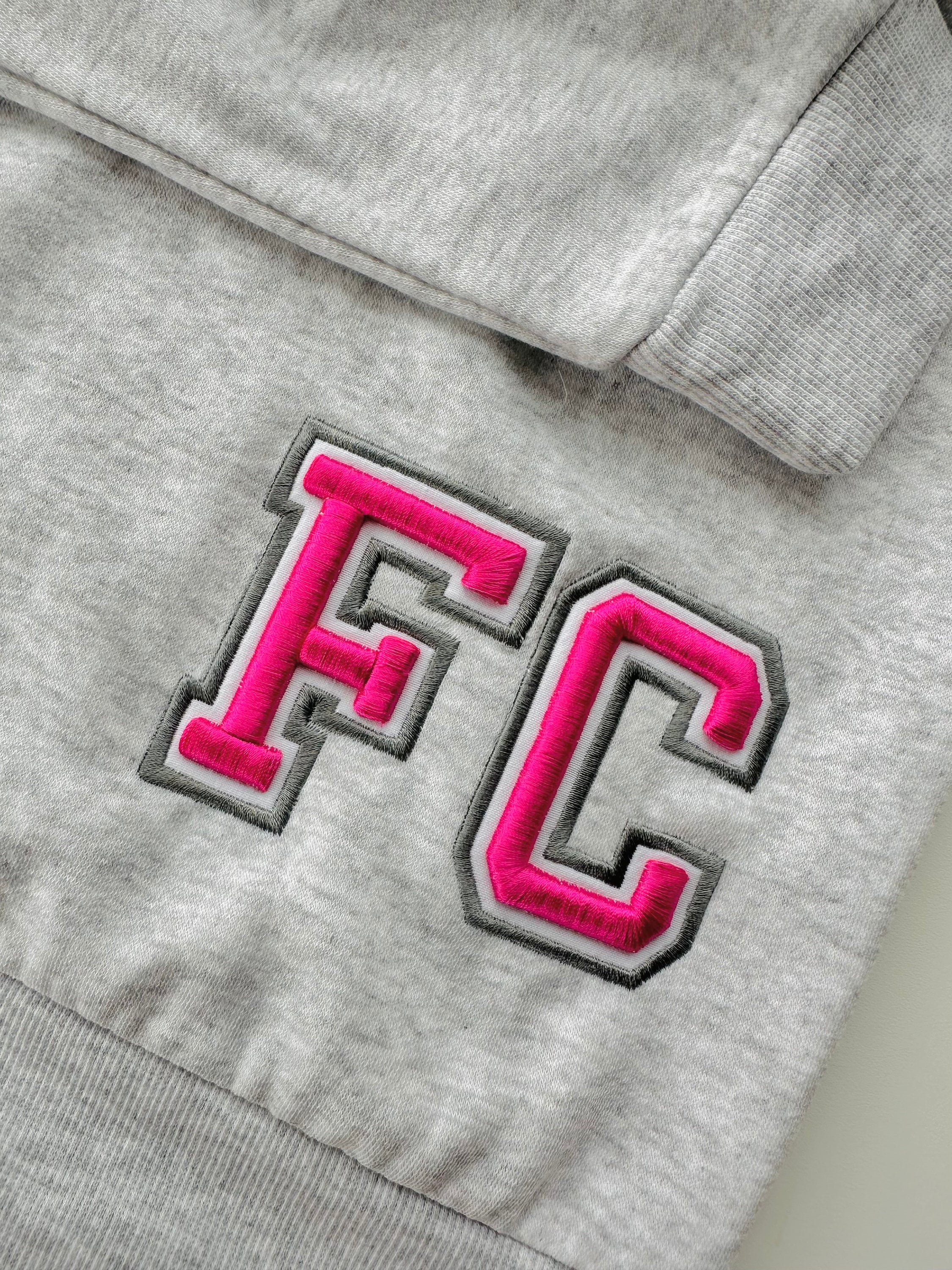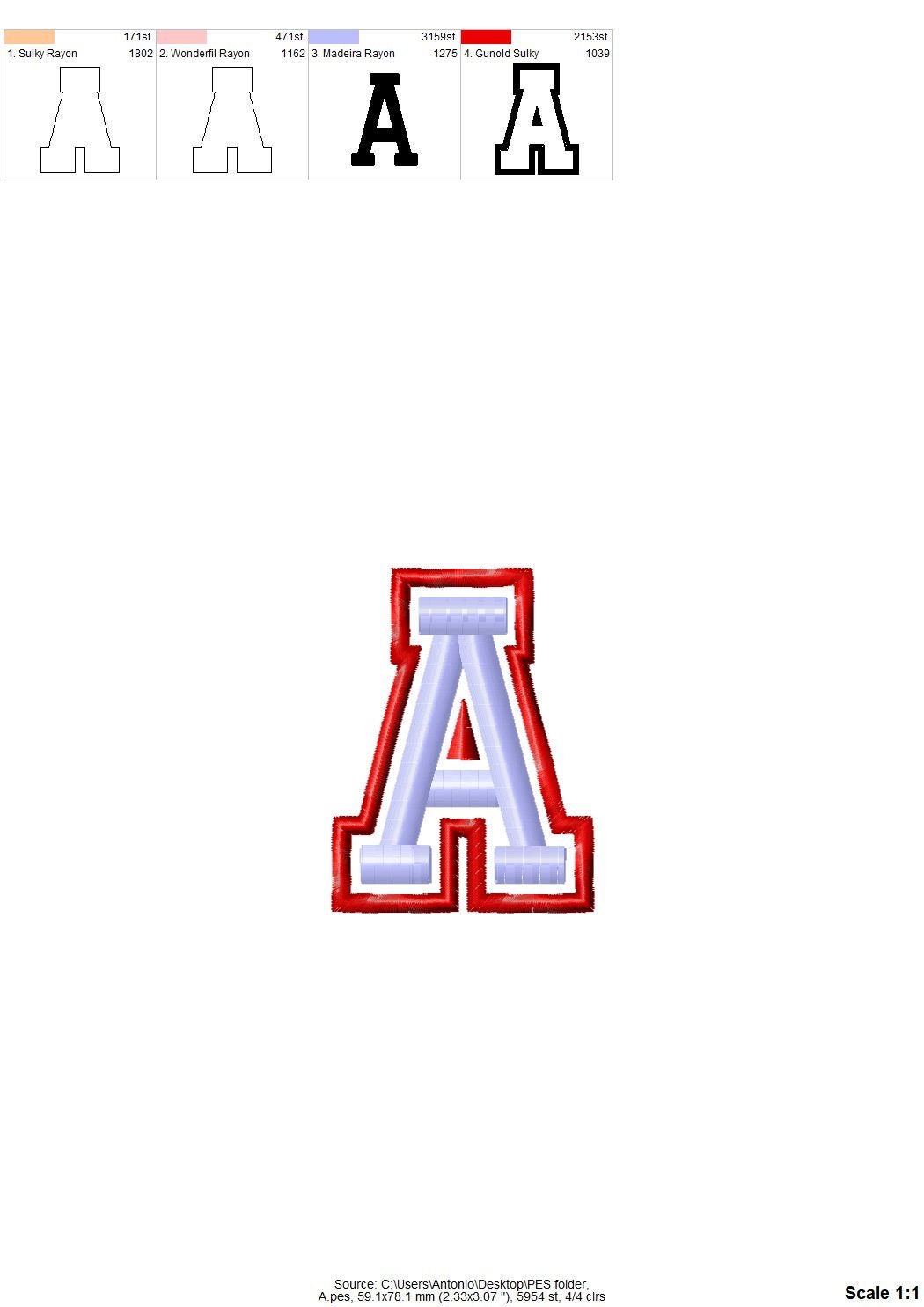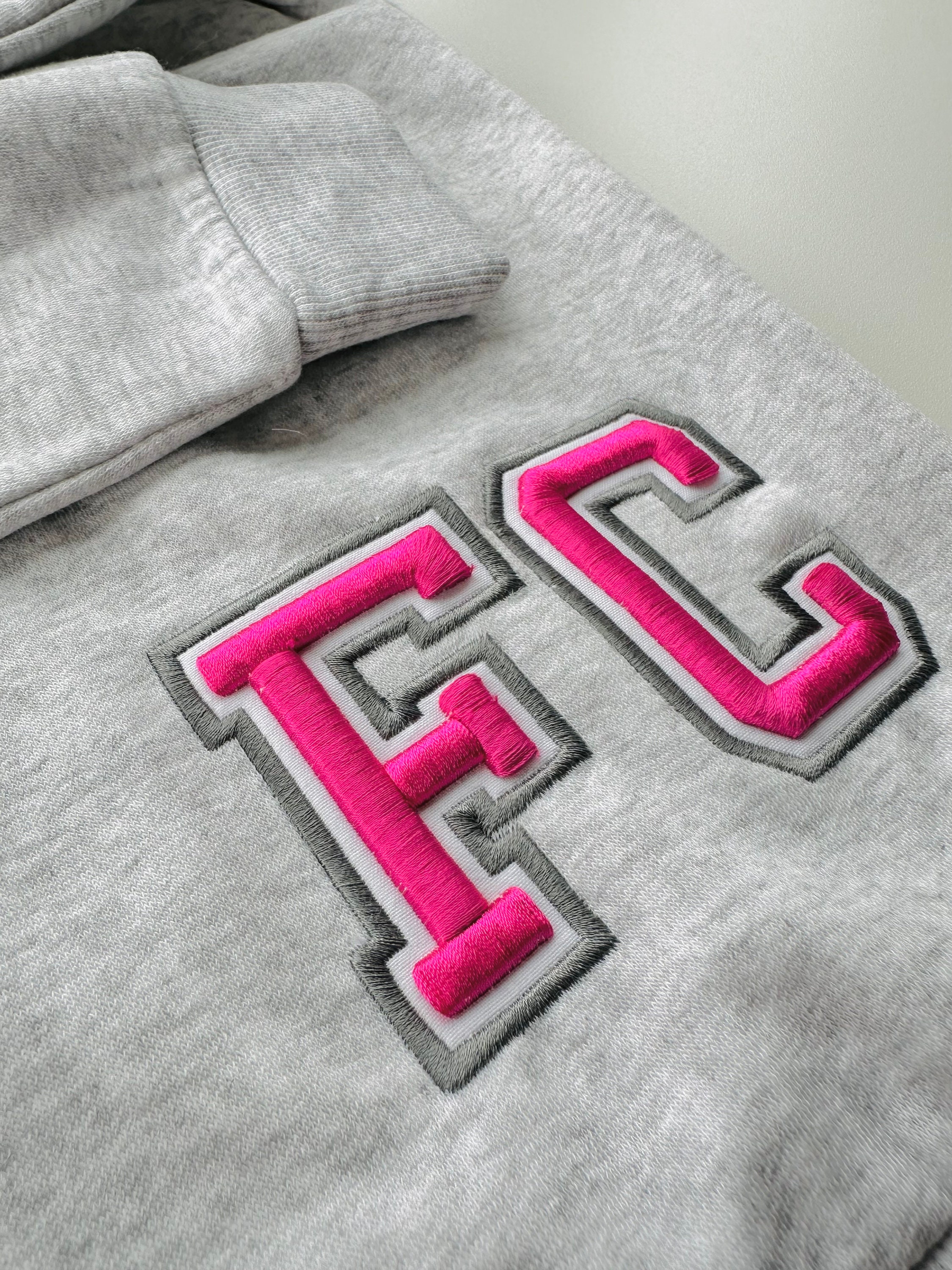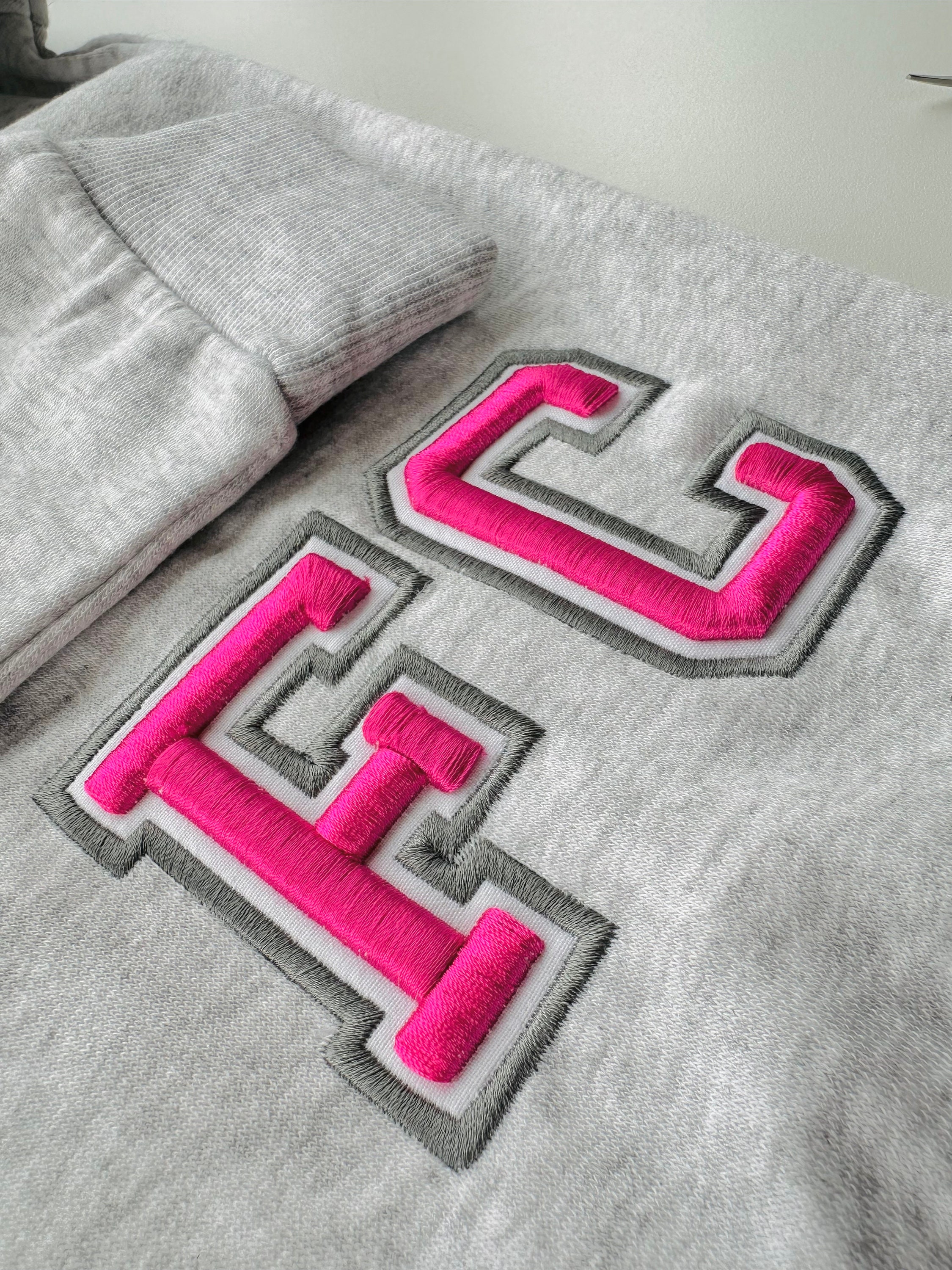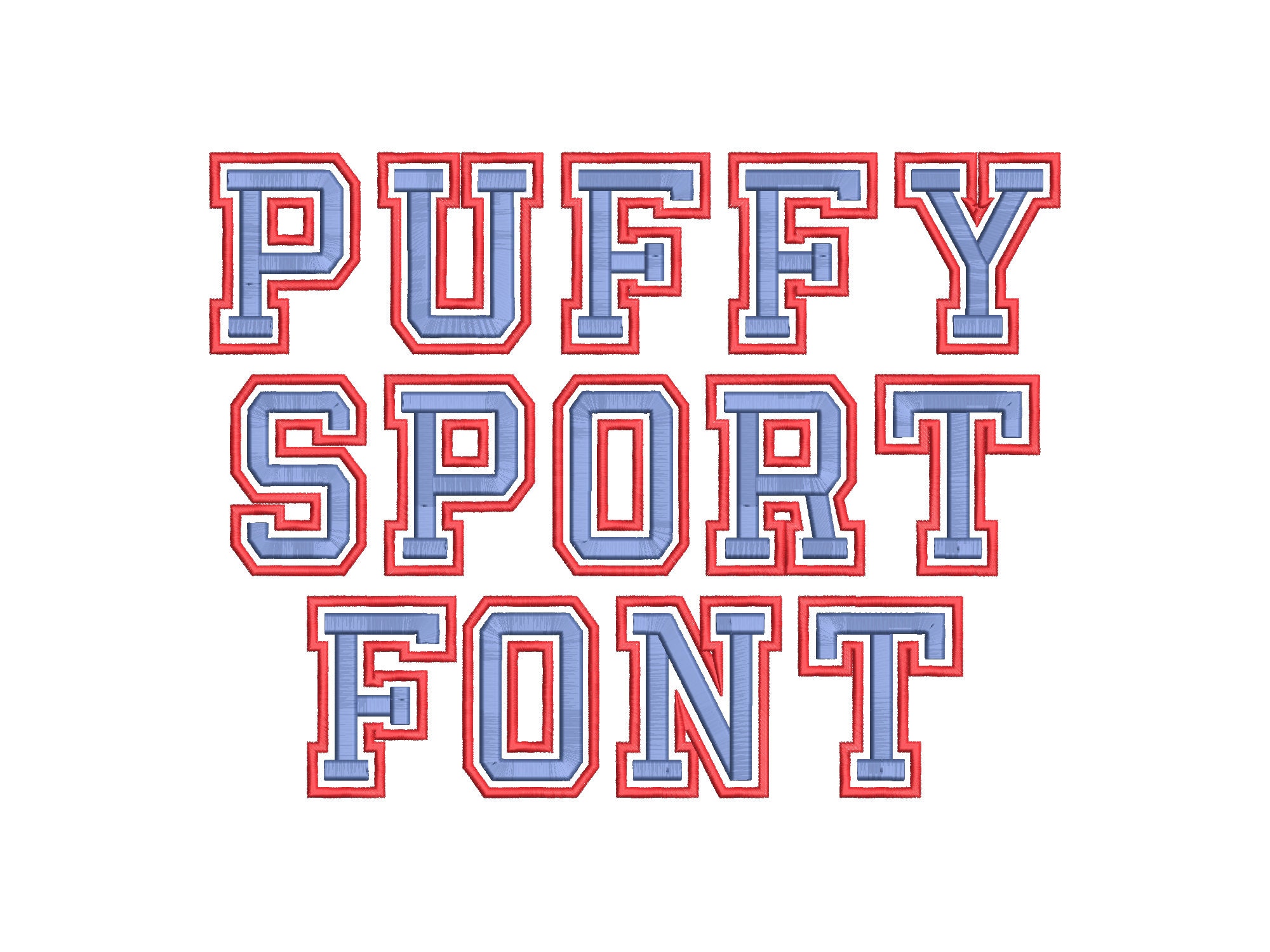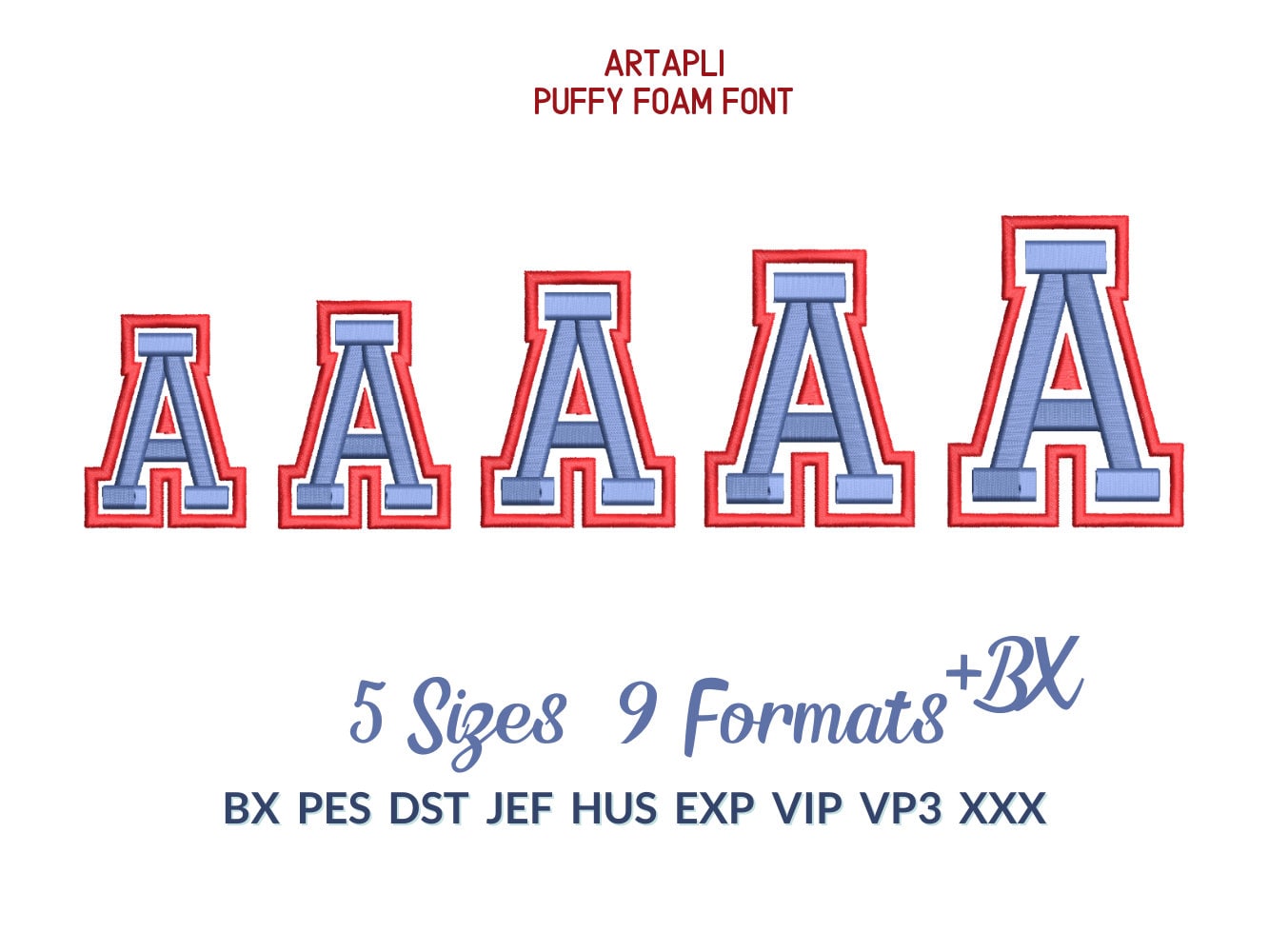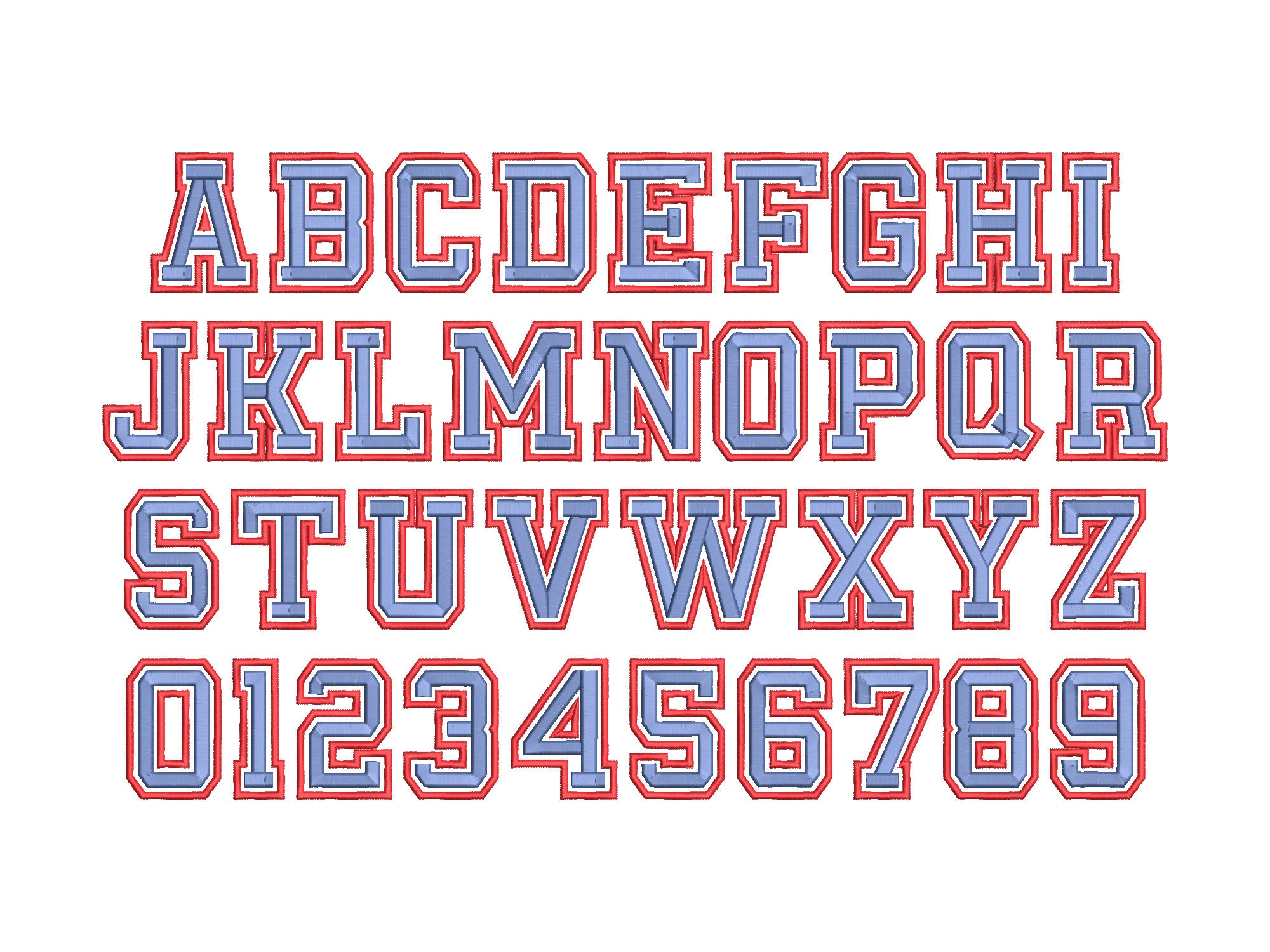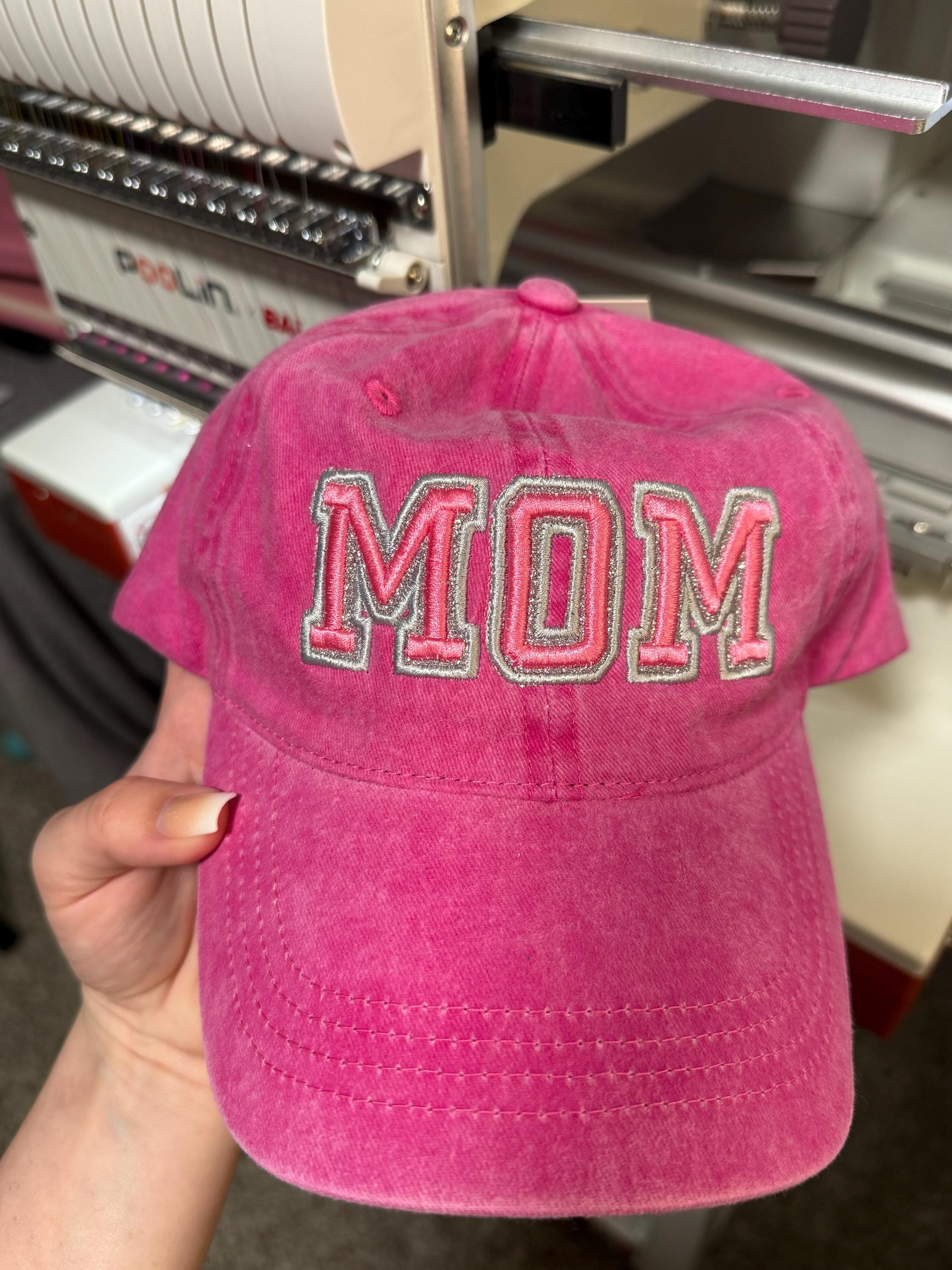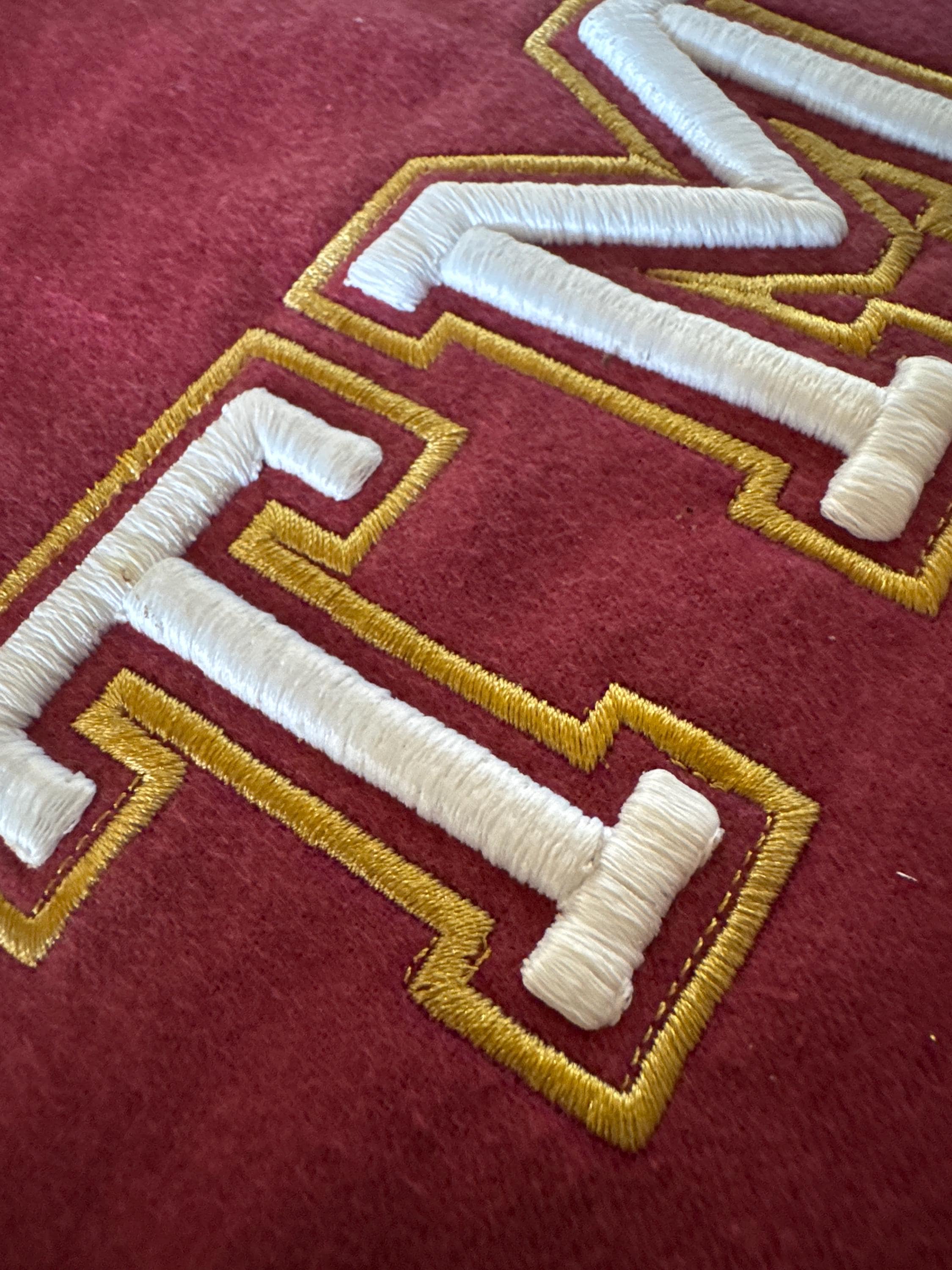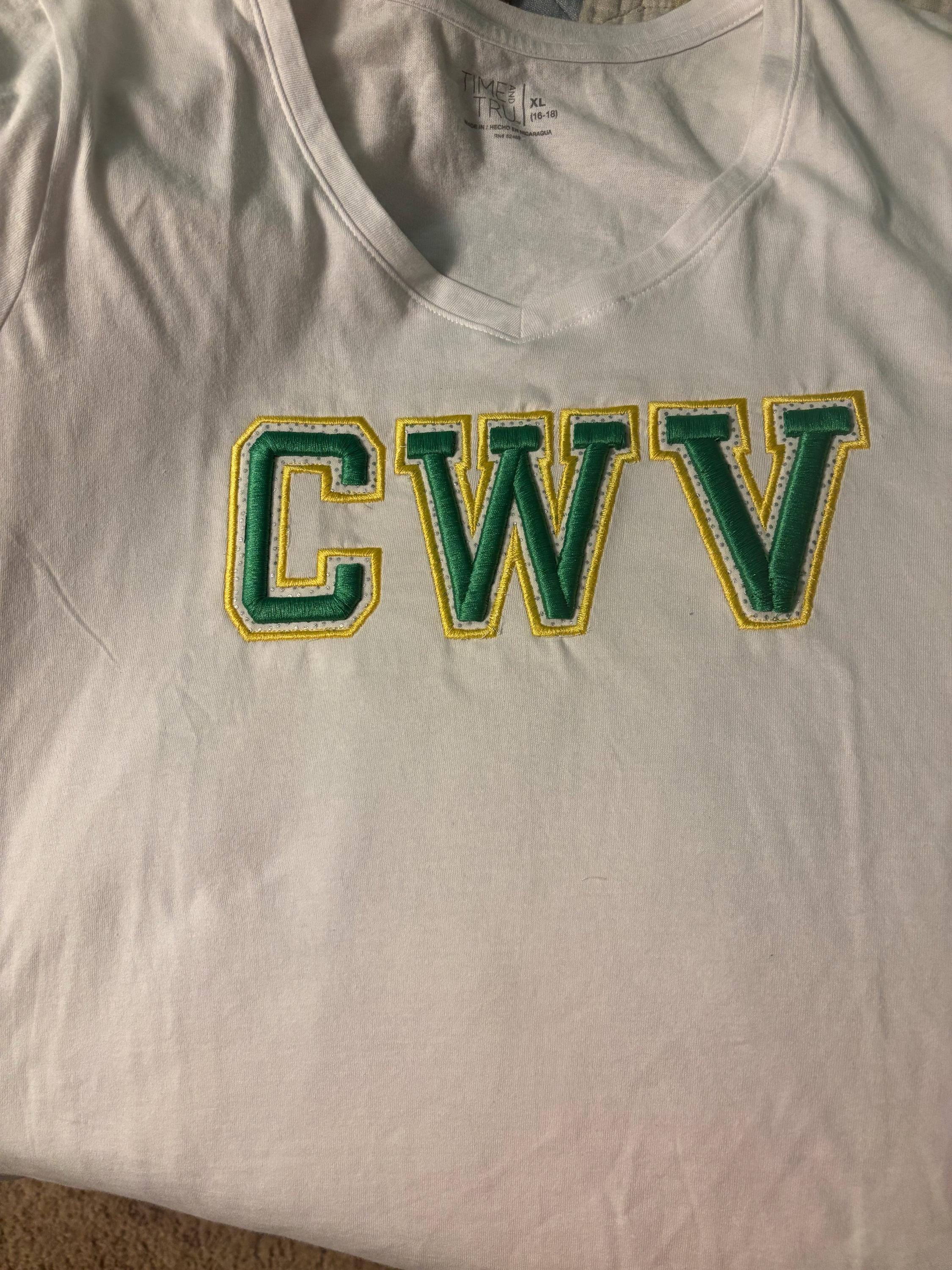
Puff Sport Varsity Embroidery font Applique machine embroidery designs 3D raised Puffy Foam alphabet monogram Block Font 2.5 up to 3.7in, BX included
Whole alphabet A-Z uppercase, and numbers 0-9.
Applique design
For this design puffy foam is required. I'm using Gunold puffy foam thickness 3 mm.